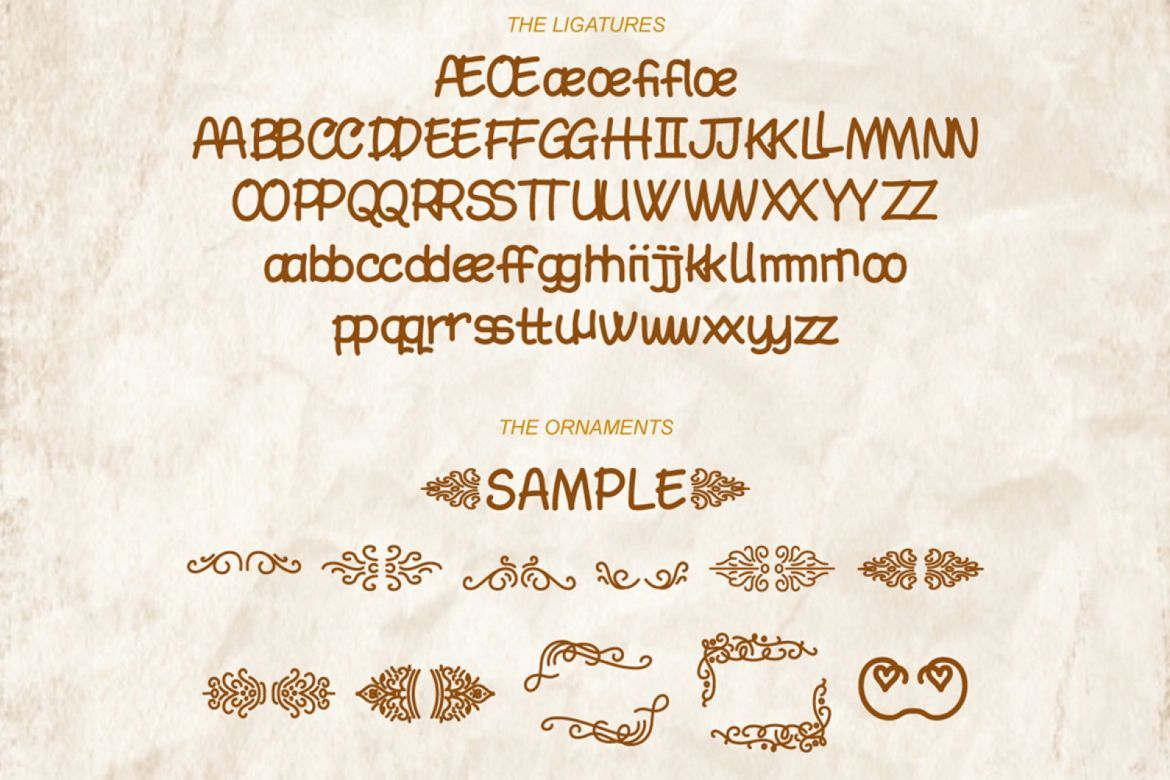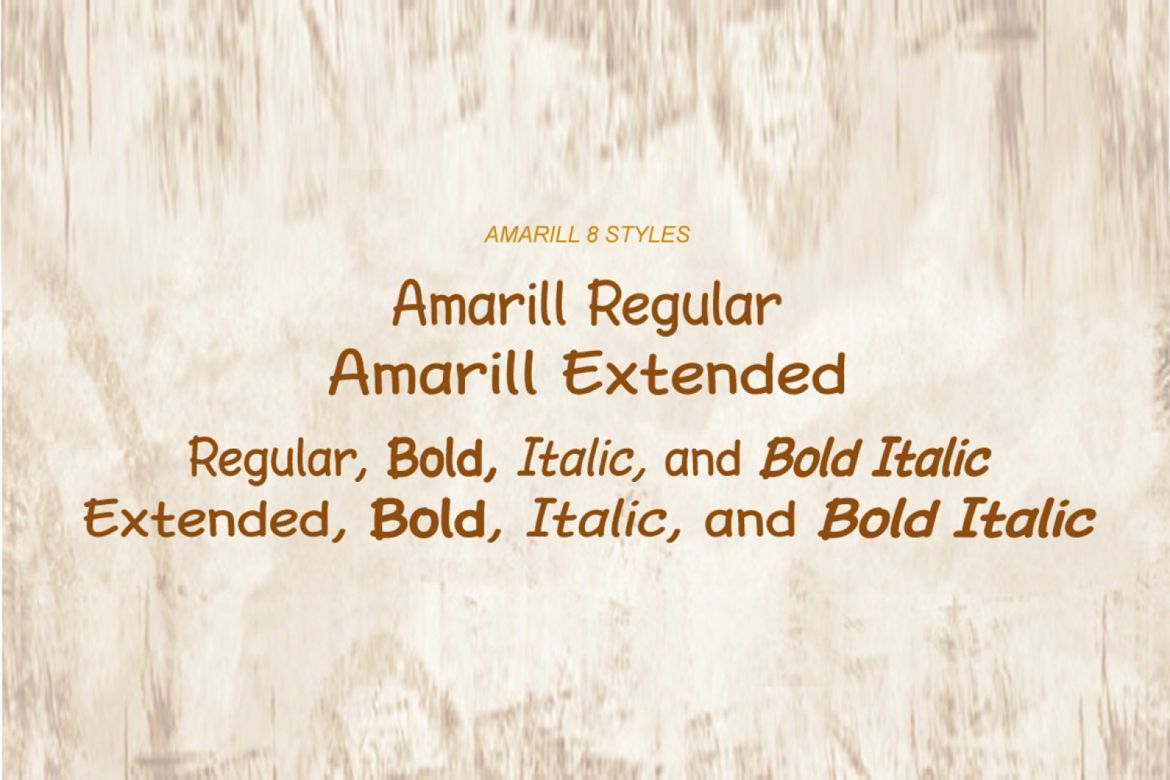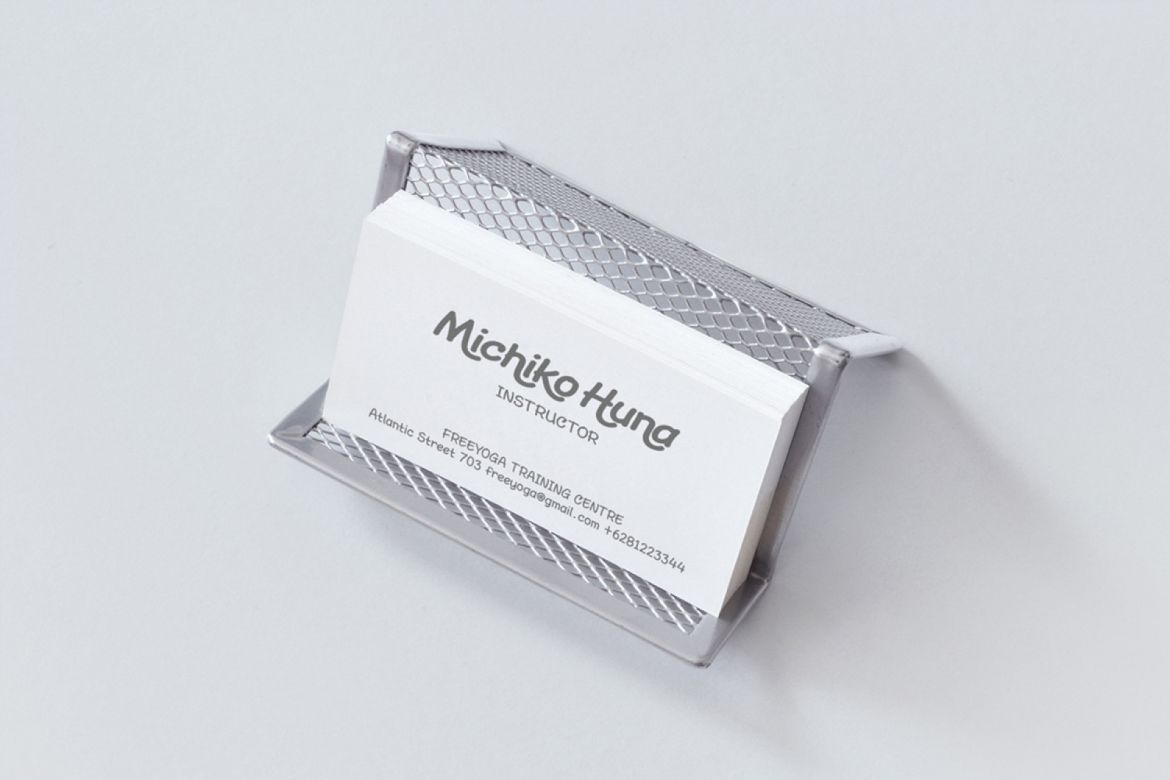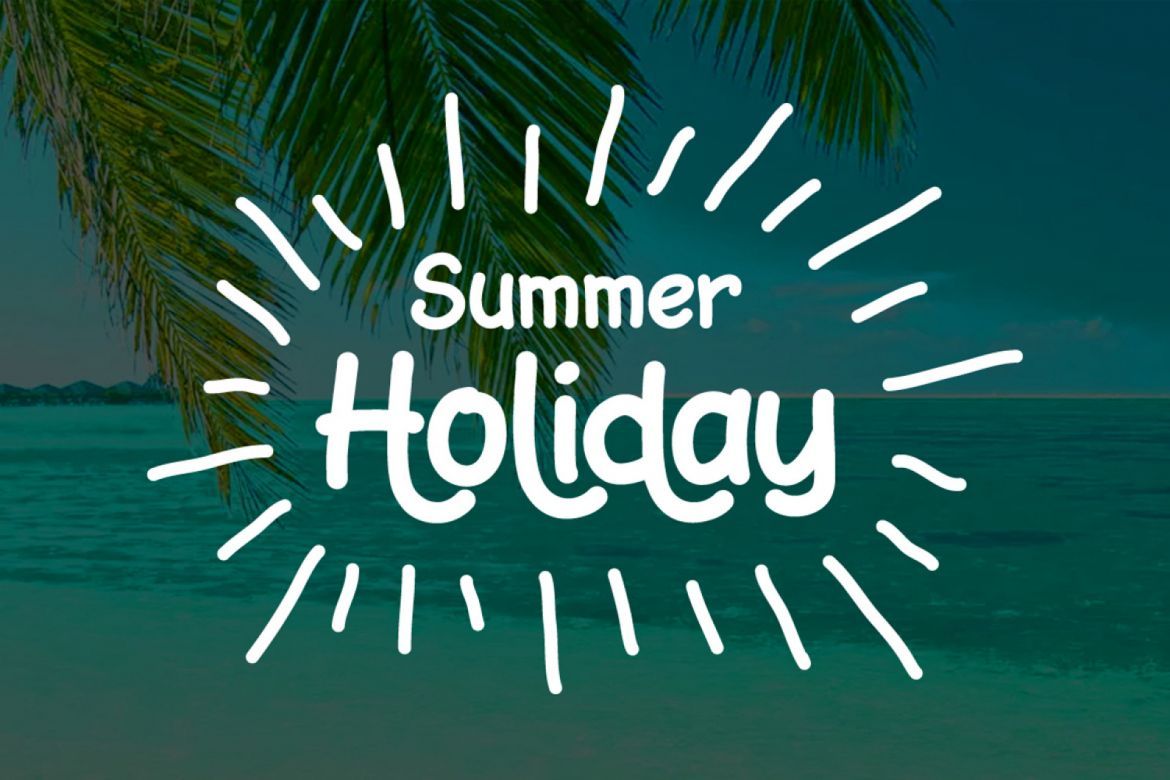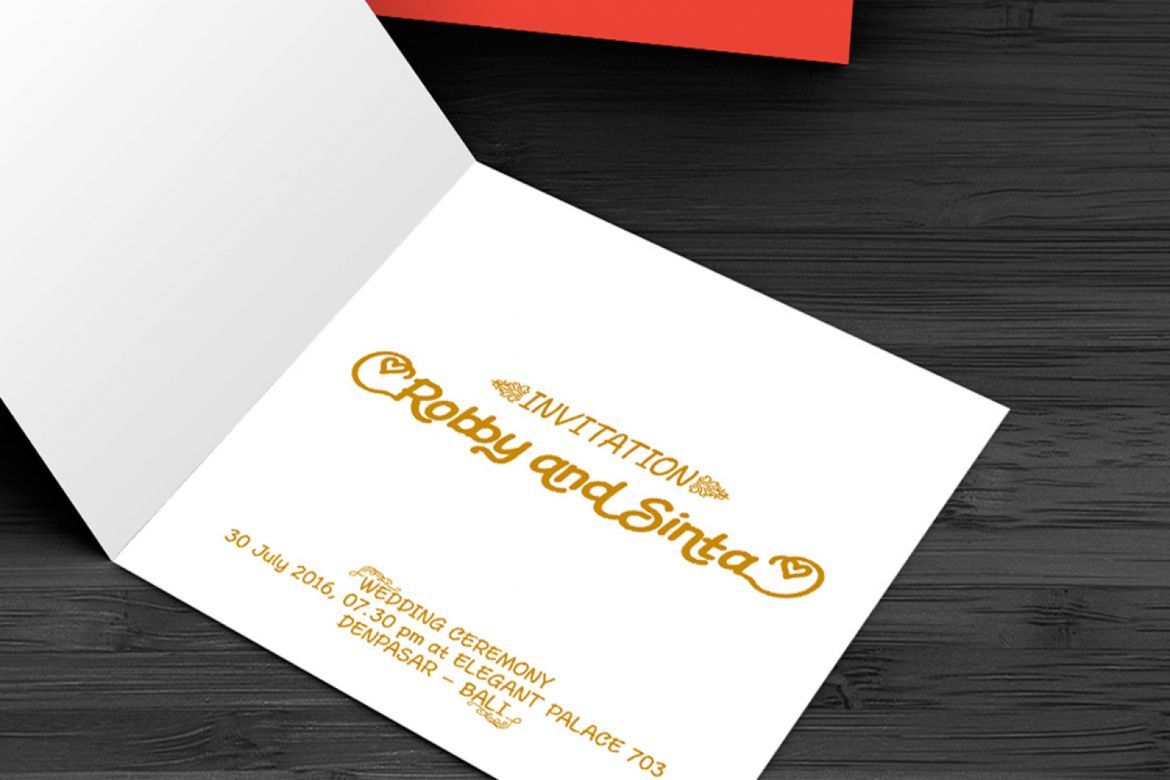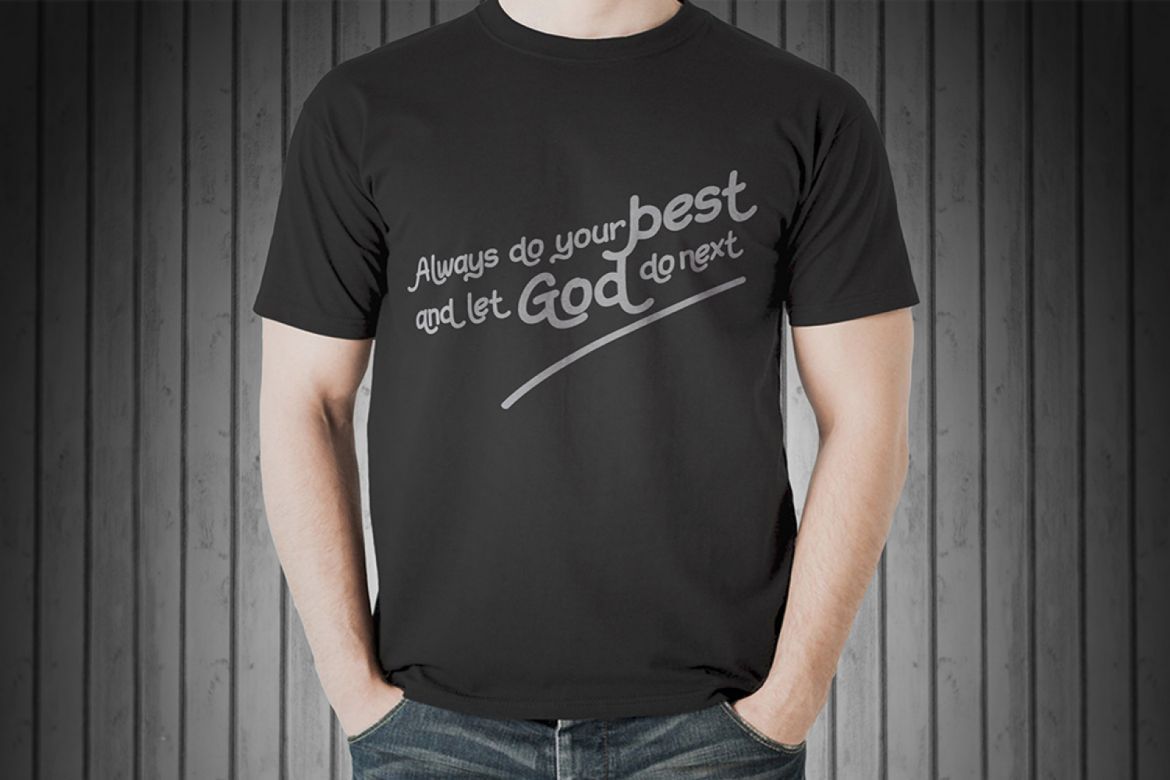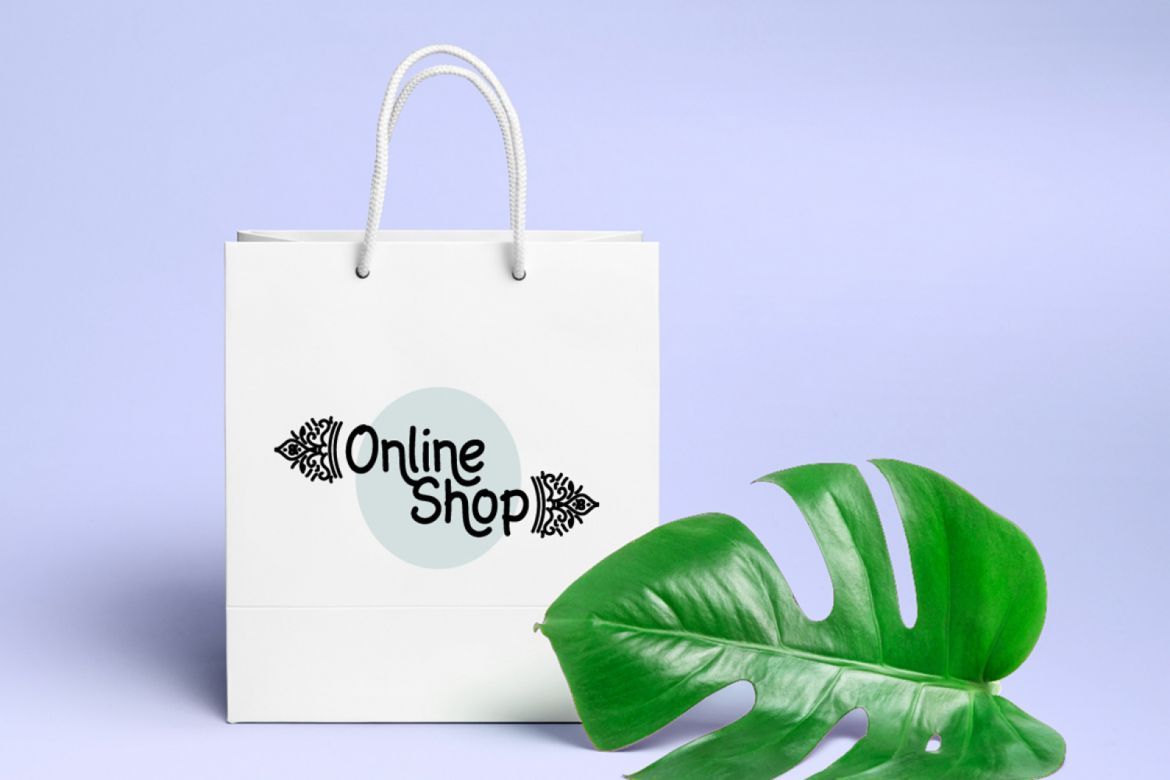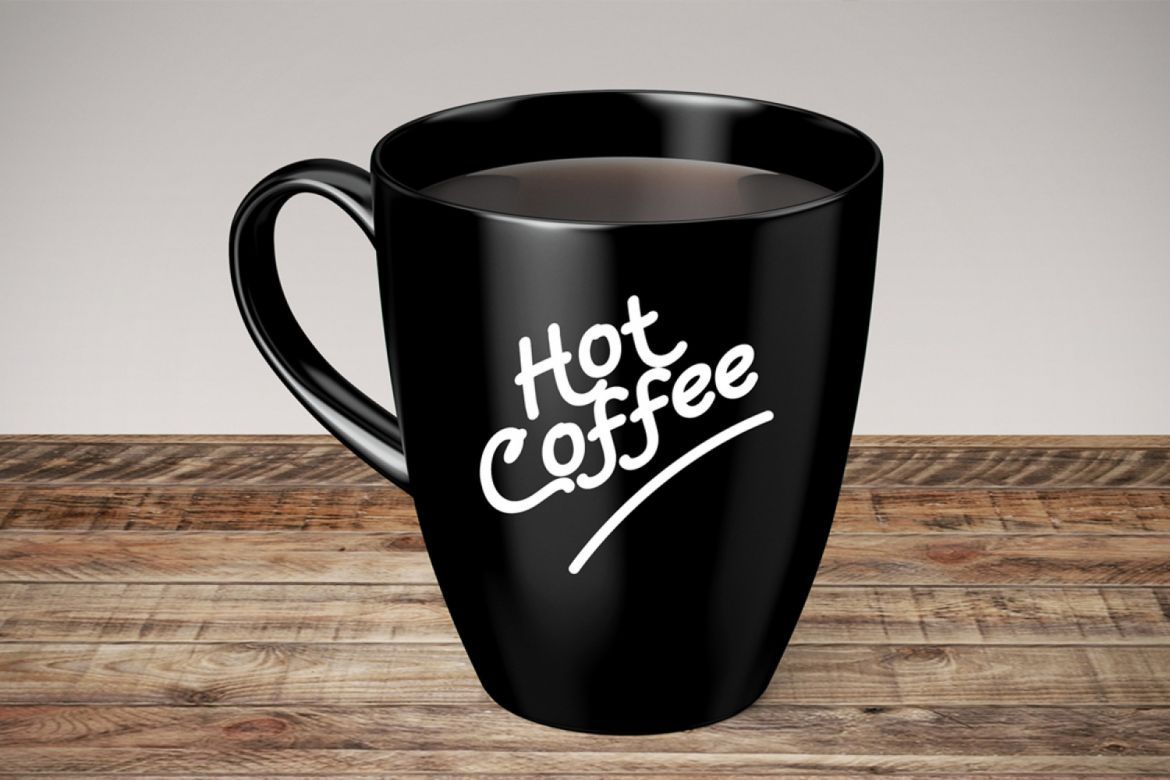
Amarill font
The Amarill font is a beautiful handwritten modern sans serif font created by Cove703
The Amarill font contains 8 different styles and has 341 Glyphs:
Amarill Regular
Amarill Bold
Amarill Italic
Amarill Bold Italic
Amarill Extended
Amarill Extended Bold
Amarill Extended Italic
Amarill Extended Bold Italic
• alternates glyph
• international language
• regular, extended, bold, and italic